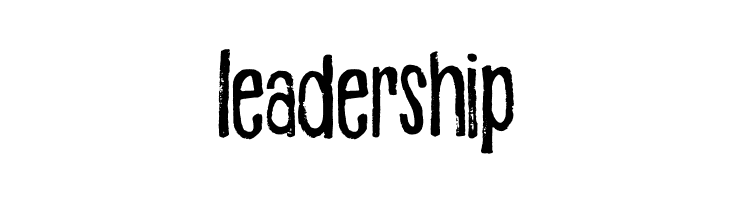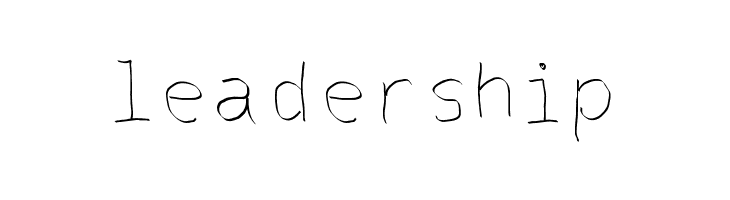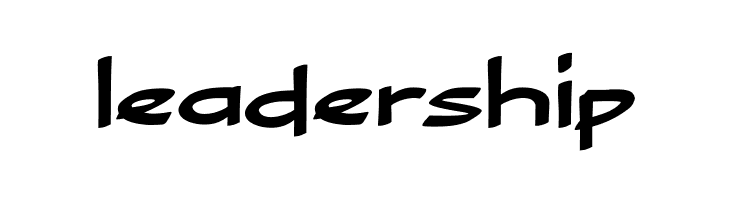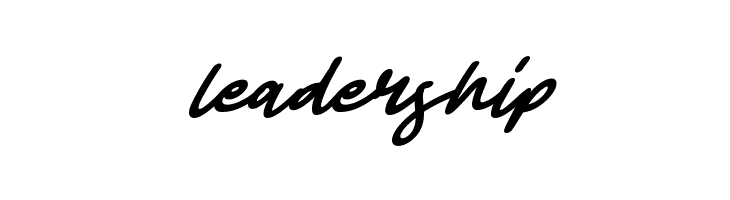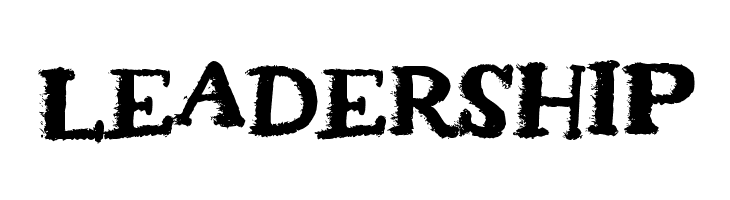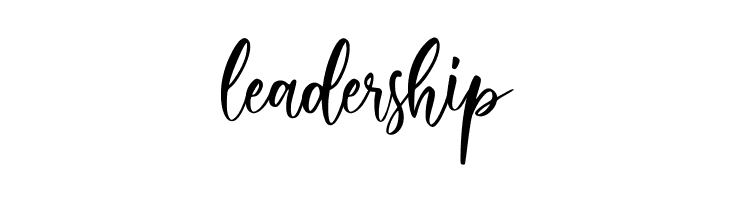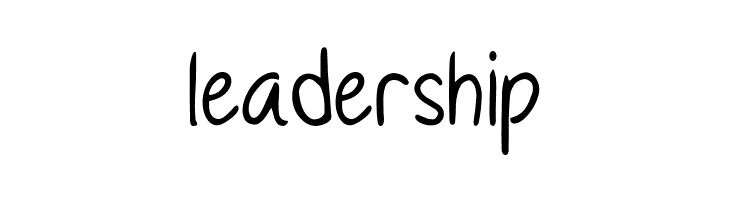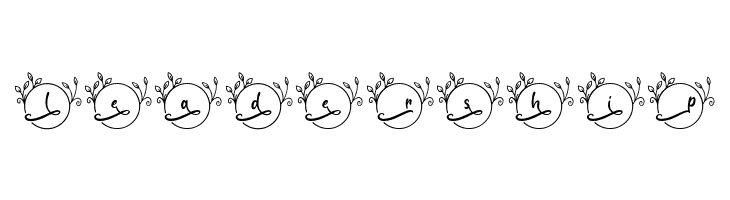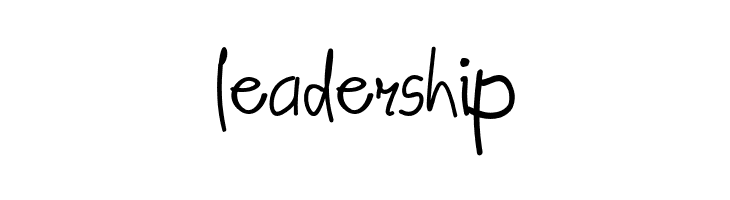
( Fonts by Vunira Design - Personal-use only. For commercial use please contact owner. ) A playful and elegant script font with flowing, connected letters. Download 35 Downloads@WebFont
( Fonts by Vultype - Candra Hamdani - Personal-use only. For commercial use please contact owner. ) A lively and elegant script font with flowing, interconnected letterforms. Download 43 Downloads@WebFont
( Fonts by Vultype - Candra Hamdani - Personal-use only. For commercial use please contact owner. ) An elegant, flowing script font with intricate loops and swashes. Download 38 Downloads@WebFont
( Fonts by Attype Studio - Fadli Ramadhan Iskandar - Personal-use only. For commercial use please contact owner. ) A decorative font with floral monogrammed letters and a whimsical, elegant style. Download 55 Downloads@WebFont
( Fonts by Damasyp - Damas Yudhistira - Personal-use only. For commercial use please contact owner. ) A playful, handwritten font with a whimsical and informal style. Download 62 Downloads@WebFont
( Fonts by Nurf Designs - Personal-use only. For commercial use please contact owner. ) A modern, rounded font with uniform stroke width and friendly appearance. Download 101 Downloads@WebFont
( Fonts by Nurf Designs - Personal-use only. For commercial use please contact owner. ) A bold, rounded sans-serif font with smooth curves and uniform strokes. Download 81 Downloads@WebFont
( Fonts by Nurf Designs - Personal-use only. For commercial use please contact owner. ) A bold, italicized font with rounded, smooth letterforms and a modern aesthetic. Download 40 Downloads@WebFont
( Fonts by Nurf Designs - Personal-use only. For commercial use please contact owner. ) A modern, italic font with rounded, smooth characters and consistent stroke thickness. Download 37 Downloads@WebFont
( Fonts by Abir - Personal-use only. For commercial use please contact owner. ) A casual, handwritten font with a personal and authentic touch. Download 67 Downloads@WebFont
( Fonts by Giri Setia Pradana - Personal-use only. For commercial use please contact owner. ) A playful, decorative font with whimsical curls and loops. Download 83 Downloads@WebFont
( Fonts by Kong Font - Personal-use only. For commercial use please contact owner. ) A bold, handwritten font with a playful and informal style. Download 85 Downloads@WebFont
( Fonts by Kong Font - https://fontkong.com/ - Personal-use only. For commercial use please contact owner. ) A bold, italic cursive font with a fluid, handwritten style. Download 220 Downloads@WebFont
( Fonts by wep ) A playful, hand-drawn style font with bold, irregular strokes. Download 259 Downloads@WebFont
( Fonts by wep - Wahyu Eka Prasetya - Personal-use only. For commercial use please contact owner. ) A playful, handwritten-style font with bold, irregular strokes. Download 227 Downloads@WebFont
( Fonts by kokostd - Haris Anggar - Personal-use only. For commercial use please contact owner. ) A dynamic, hand-brushed font with expressive, irregular strokes. Download 68 Downloads@WebFont
( SAMUTOJJ - www.samutojj.com ) A whimsical, decorative font with nature-inspired illustrations and a playful, hand-drawn style. Download 57 Downloads@WebFont
( Fonts by RaffaSyad Studio - www.creativefabrica.com/designer/r-studio/ - Personal-use only. For commercial use please contact owner. ) A flowing, cursive font with a handwritten, elegant style. Download 337 Downloads@WebFont
( Fonts by Wino S Kadir - weknow - www.revolge.com/shop/weknow/ - Personal-use only. For commercial use please contact owner. ) A bold, playful font with rounded, whimsical characters. Download 120 Downloads@WebFont
( Fonts by herofonts.com. Personal-use only. For commercial use please contact owner. ) A modern, geometric typeface with clean lines and balanced spacing. Download 3019 Downloads@WebFont
( Fonts by a Max Infeld - XEROGRAPHER FONTS - xerographer.blogspot.com . Personal-use only. For commercial use please contact owner. ) A playful, hand-drawn font with a sketch-like, artistic style. Download 153 Downloads@WebFont
( Fonts by a Max Infeld - XEROGRAPHER FONTS - xerographer.blogspot.com . Personal-use only. For commercial use please contact owner. ) A sophisticated cursive script with flowing, intricate loops and swashes. Download 273 Downloads@WebFont
( Fonts by K_IN Studio - Personal-use only. For commercial use please contact owner. ) A graceful, flowing script font with a handwritten style. Download 40 Downloads@WebFont
( Fonts by AminMario - Amin Mario - Personal-use only. For commercial use please contact owner. ) A dynamic and expressive handwritten font with fluid, cursive strokes. Download 56 Downloads@WebFont
( Fonts by Kong Font - fontkong.com - Personal-use only. For commercial use please contact owner. ) A bold, expressive brush-style font with a dynamic, hand-painted look. Download 53 Downloads@WebFont